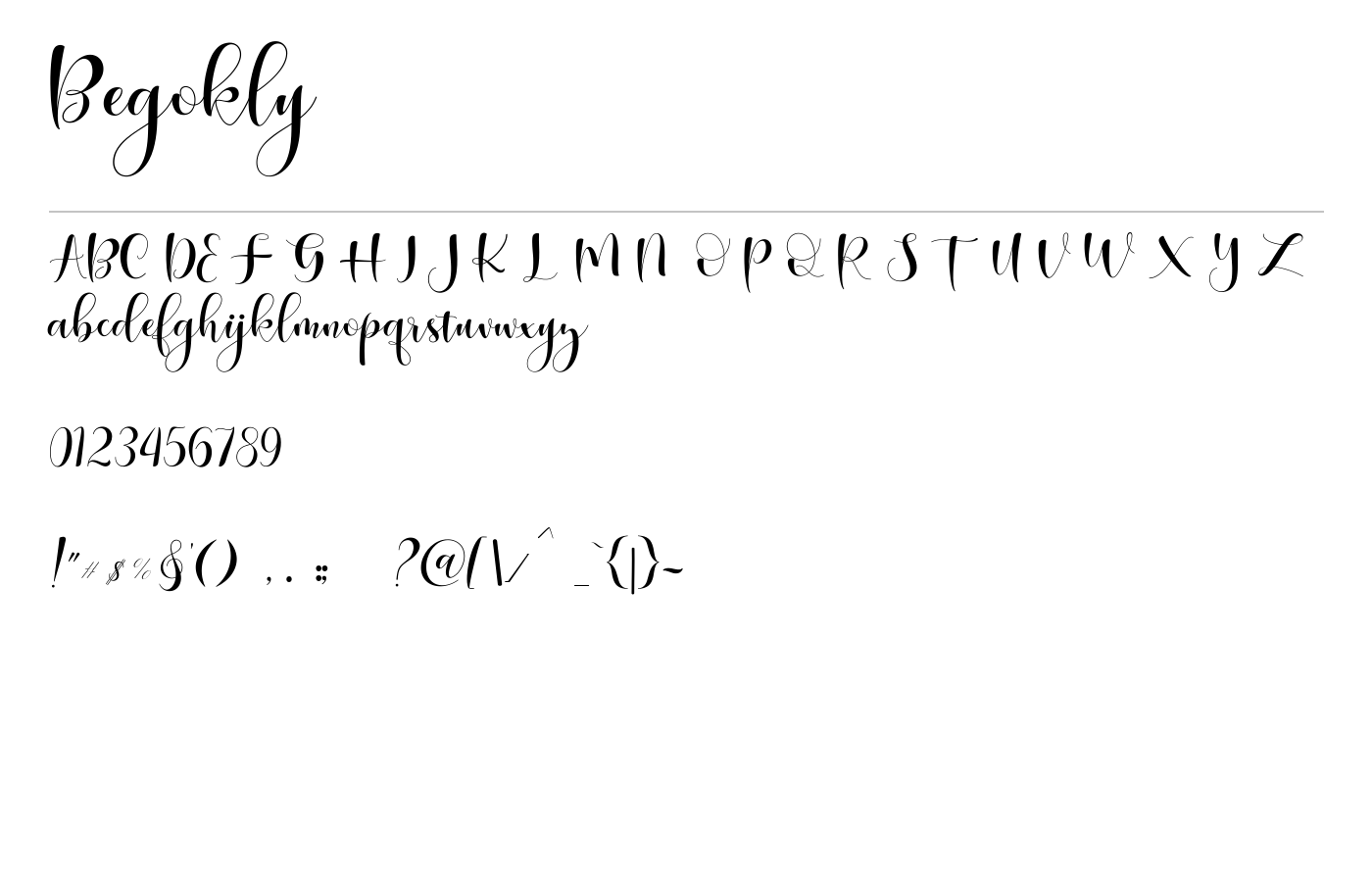
Begokly is a delicate, elegant script font with a flowing, calligraphic style that features thin and thick strokes contrasting beautifully to create a sophisticated look. Its playful yet refined letterforms and smooth curves make it perfect for invitations, branding, and any design aiming for a luxurious, artistic feel. This font shines in decorative headlines and creative projects where a touch of graceful charm is desired.
Begokly Font